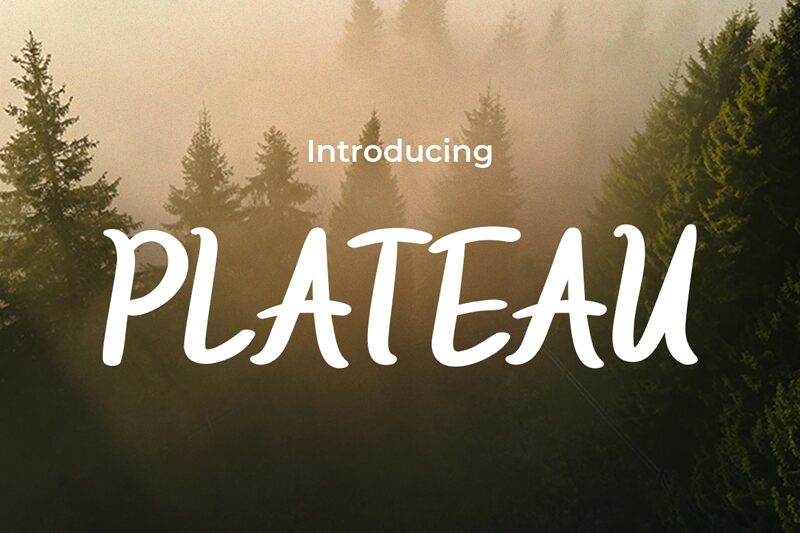
Plateau font by Pinisiart is a free handwritten font with a curvy, informal, and dynamic look. With vibrant style and expressive letterforms, the font gives off a modern and approachable vibe that does not intimidate its readers. Energetic and young, Plateau is a relaxed font suitable for fun graphic projects.
Use this font for album covers, game design, flower shops, lifestyle blogs, social media posts, mobile applications, and creative magazines. Plateau is also ideal for cafe menus and branding.